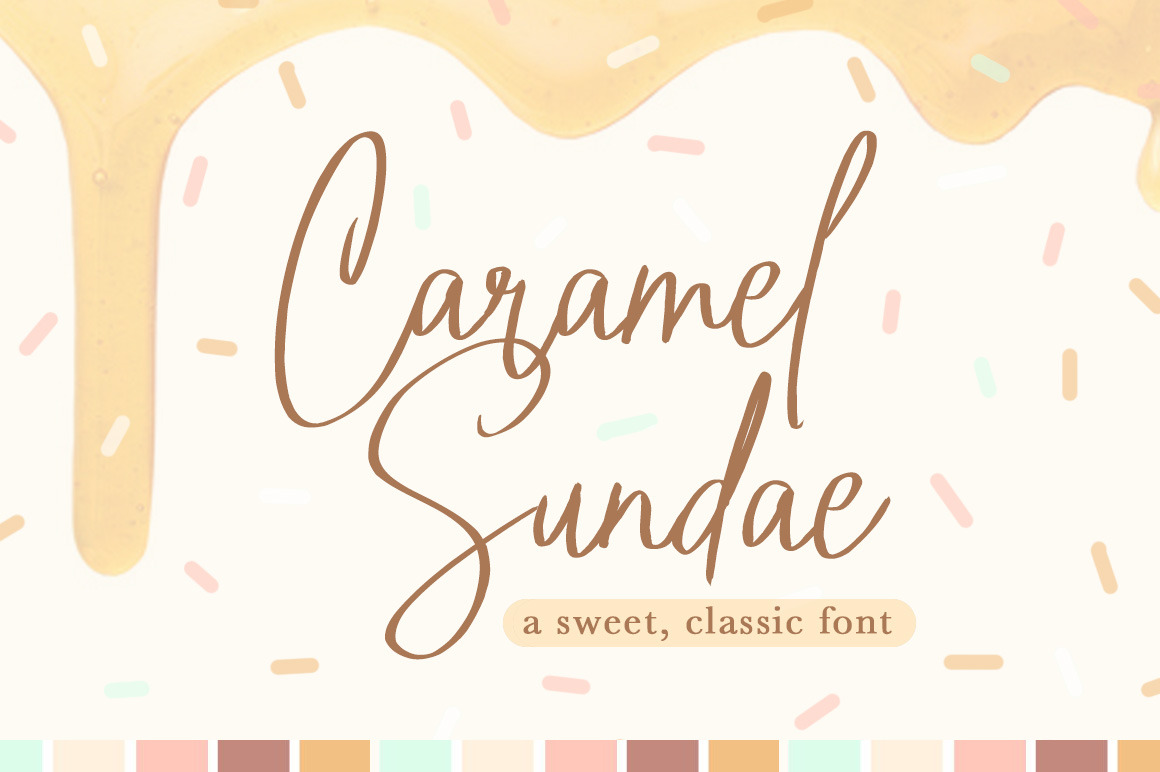
Caramel Sundae Font
Caramel Sundae is a nice script font with pointed edges that makes it look as if it was written with a fountain pen-- perfect for getting that handwritten flair on your wedding stationery, social media graphics, book covers, and all your other design projects that beg for an organic, handwritten look.
- All uppercase
- All lowercase
- Numerals and punctuation
- Special letters for most of the European languages